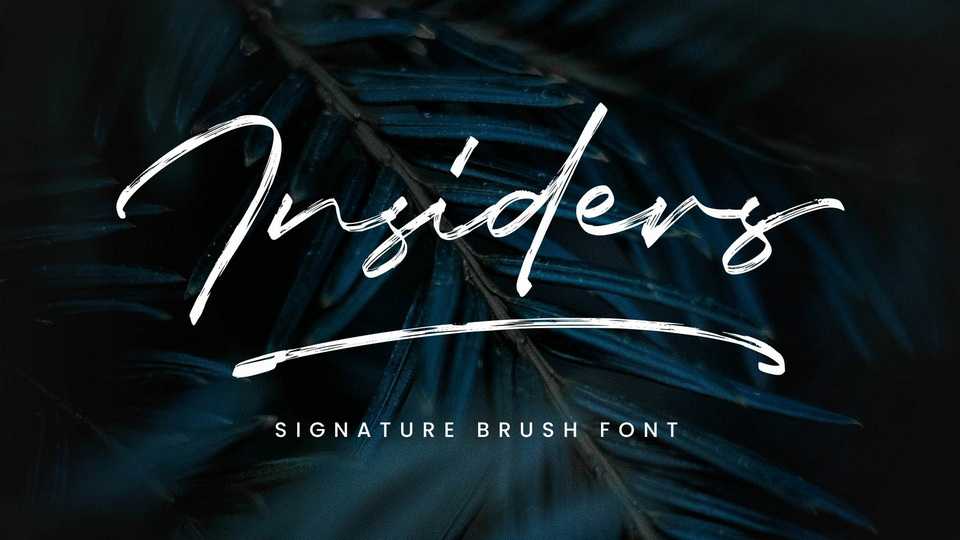
Download Insider font, a signature brush typeface made with the high attention of the brush details. Insider font is inspired by the dry brush lettering and signature logo.